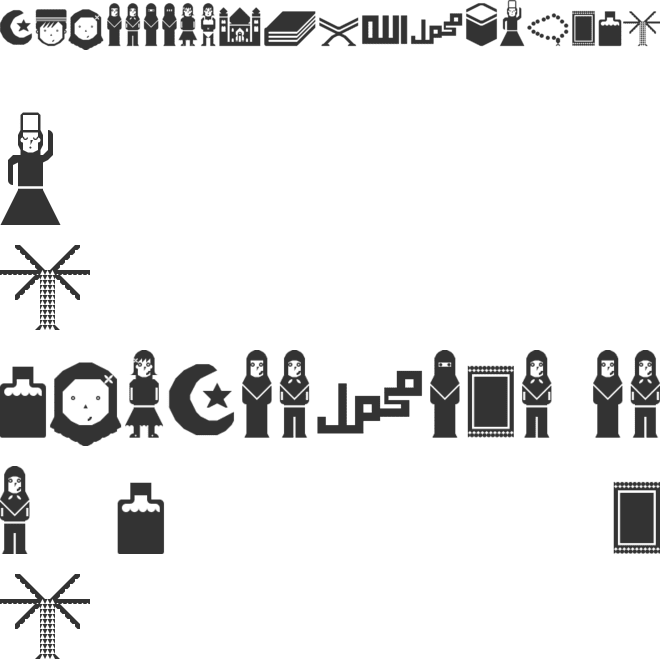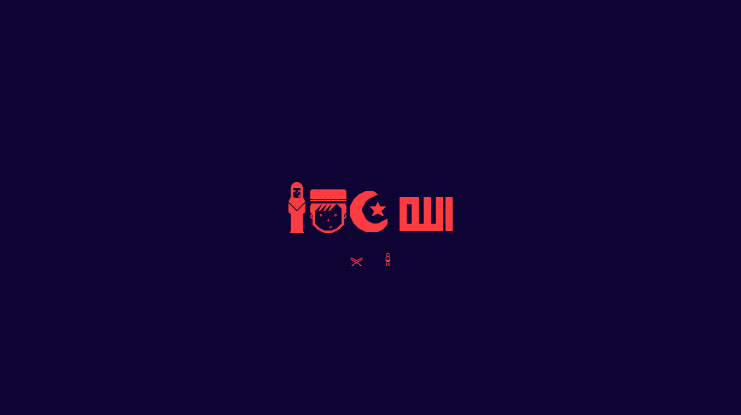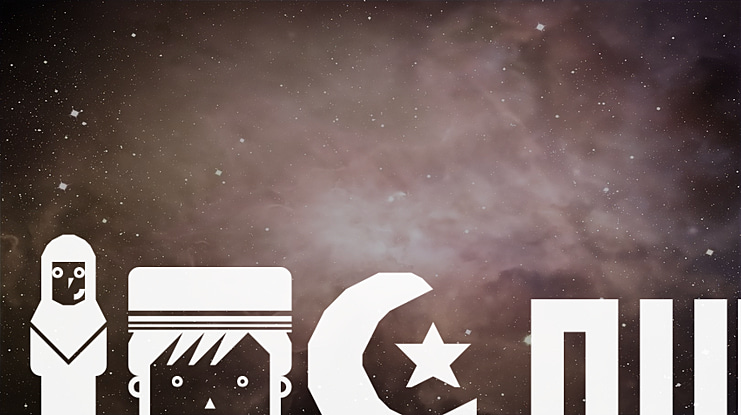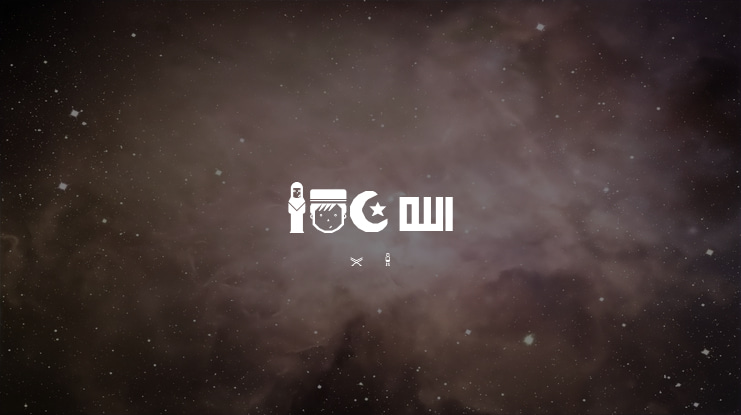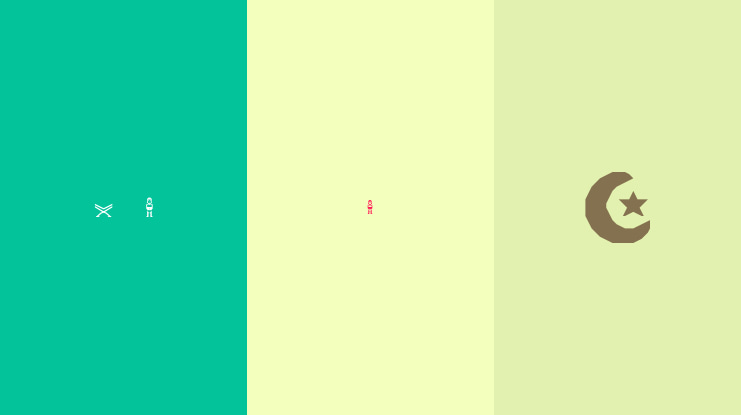
DBA Muslim Font
:::DBA MUSLIM::: DBA comes from "don't be afraid" I'm really disturbed when the world is being Islamophobic... oh my god.. They think all terrorists are Muslim.. No! The fact is 6% of terrorist attack in US and 0.4% terrorist attack in Europe are Muslim. That was very tiny number. I just wanna get my full right as world society and i can get all of appreciation of humanity and recognition of our community (i.e our people, religion, cultures, folks, traditions). I'm Indonesian Muslim, i see many differences between Indonesian Muslim and Middle East Muslim. We'r rather like Turkey, we are moderate Muslim. We live together with Christians, Catholics, Hindu, Buddhist, Kong Hu Chu, some other Jews in a peace. (Indonesia is anti with Atheism)
A = Crescent Moon and Star B = Muslim (Boy) C = Muslimah (Girl) D = Ordinary Muslimah with Hijab E = Stylish Muslimah with Hijab F = Ninja Muslimah (hehehe) :D G = Burq Muslimah H = Mislimah without Hijab I = Bad Muslimah J = Masjid K = Holy Quran L = Holy Quran Portable Table M = 'God' in Arabic N = Mohammad in Arabic O = Kabbah (the cube) P = The Darvish of Sufism Q = Tasbeh (helpful tool for Dzikr) R = Sajdah (place to sujud) S = Bottled Zamzam water T = Palm Tree